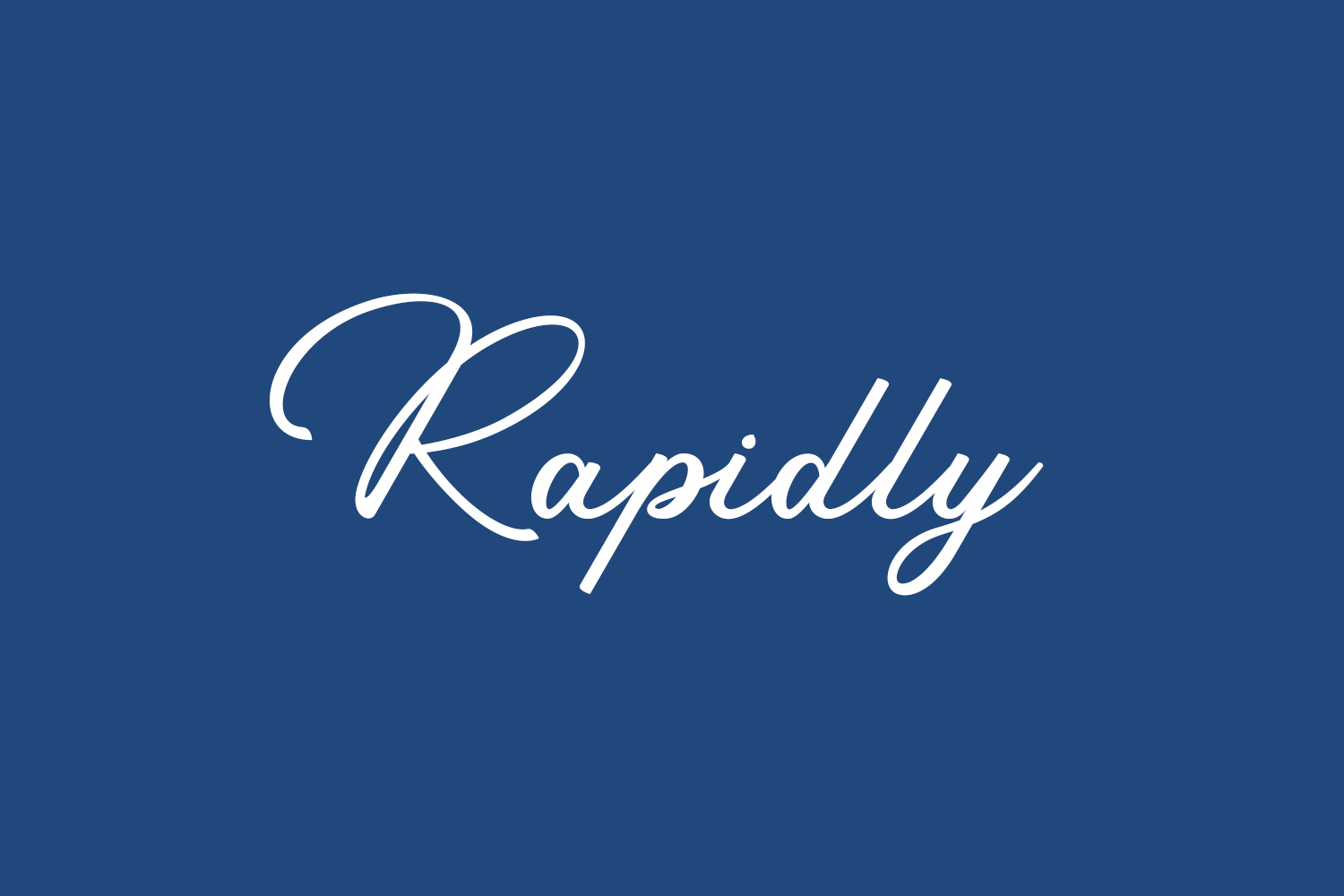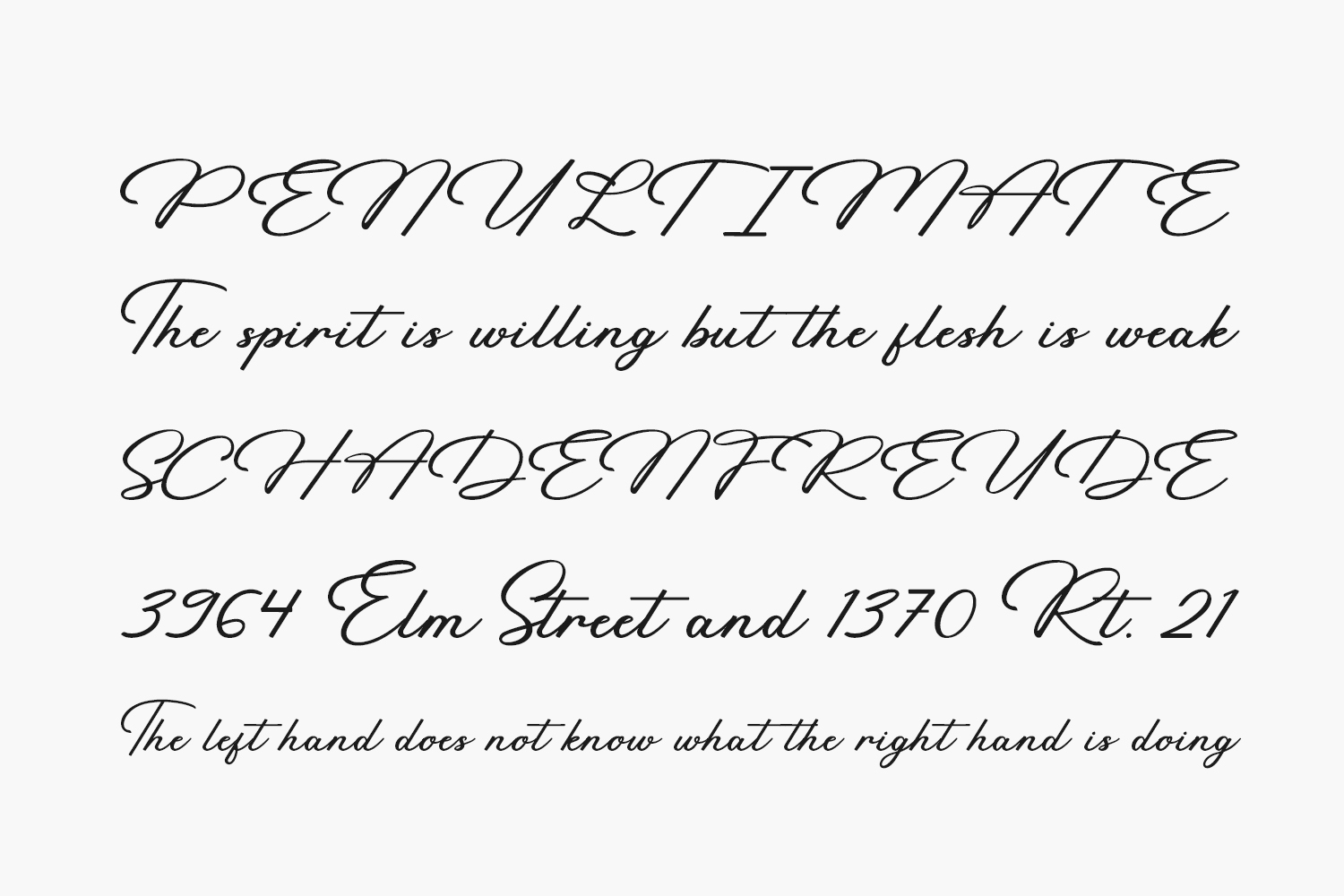
Introducing Rapidly Free Font, a chic signature script typeface – a fresh, trendy, and effortlessly cool handwritten font that enhances the allure of your products. Crafted with meticulous attention to detail, Rapidly mimics natural handwriting, ensuring versatility across various media platforms. Download the font for free if you need it for personal use or purchase the full version for commercial use.
Designed by RGB Studio